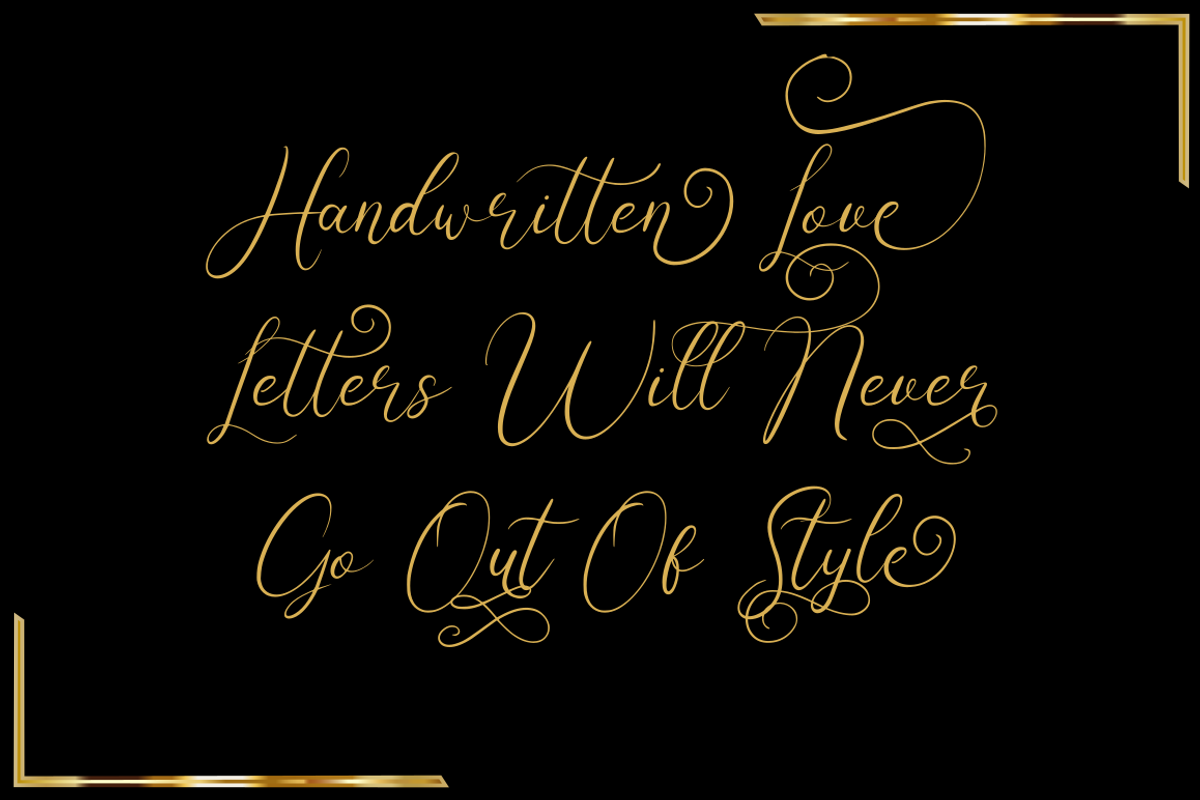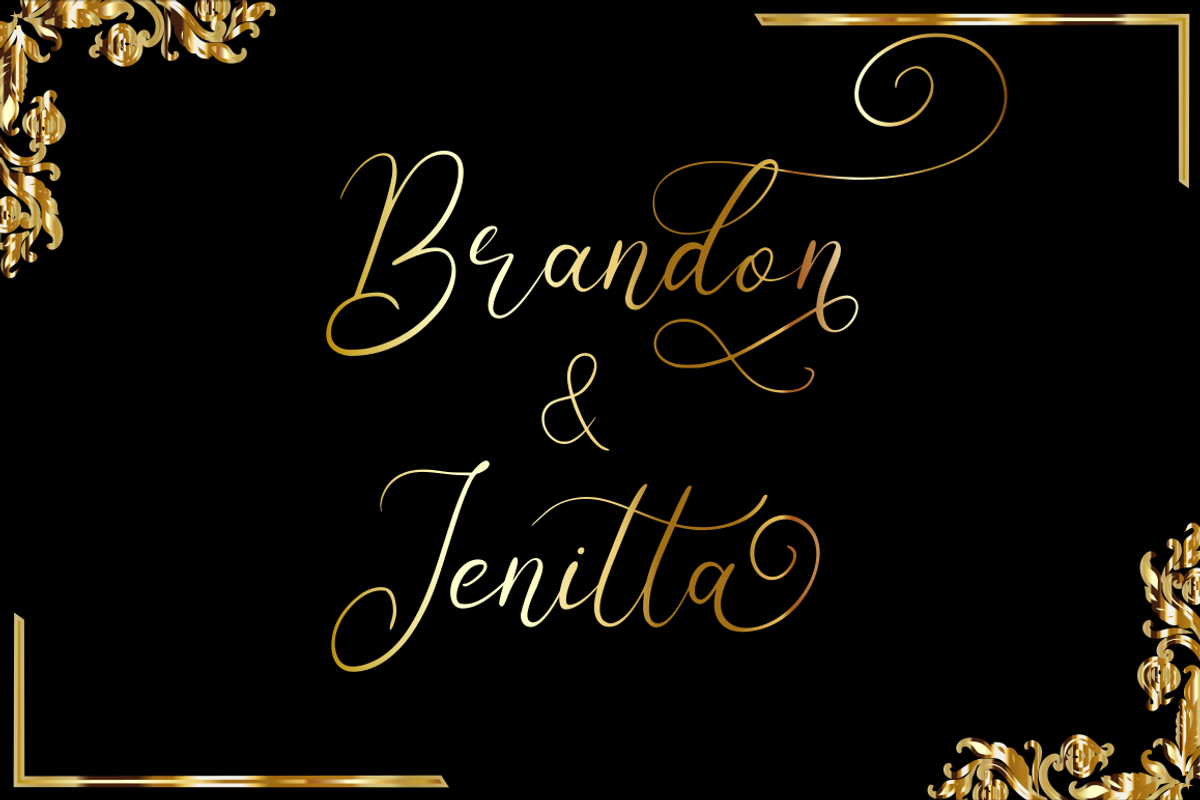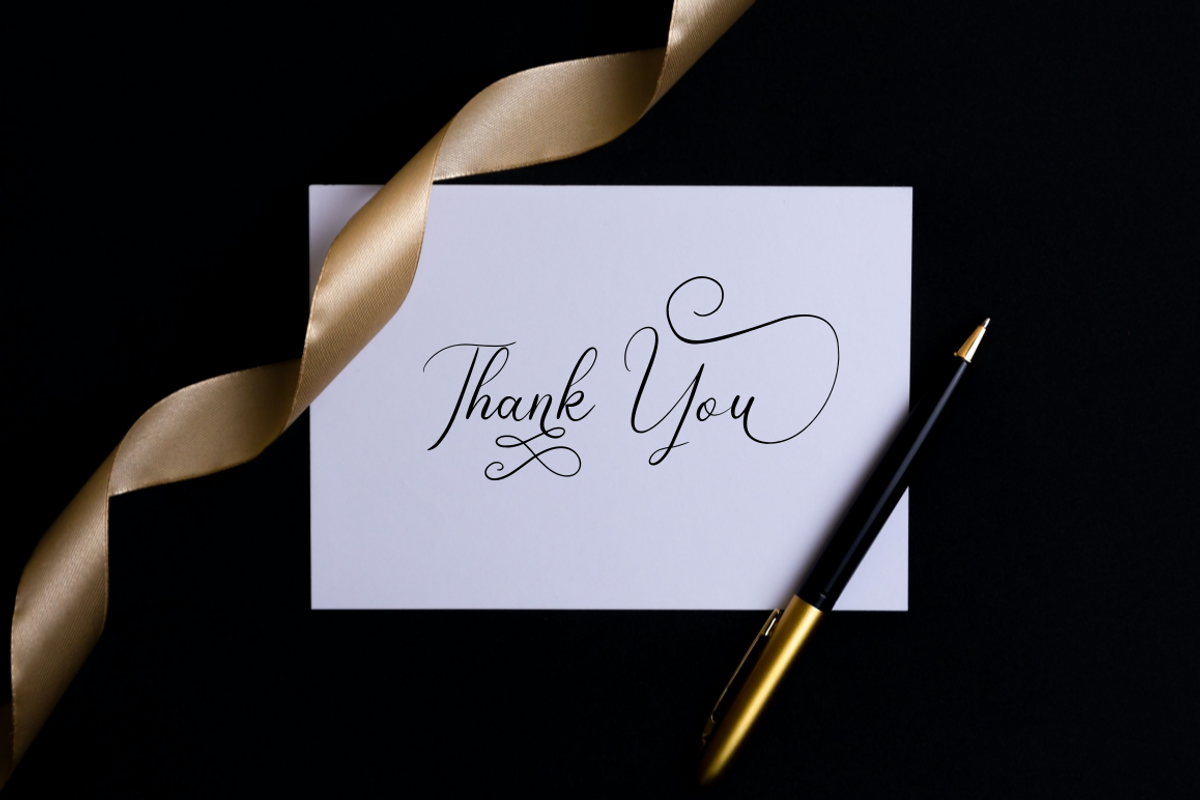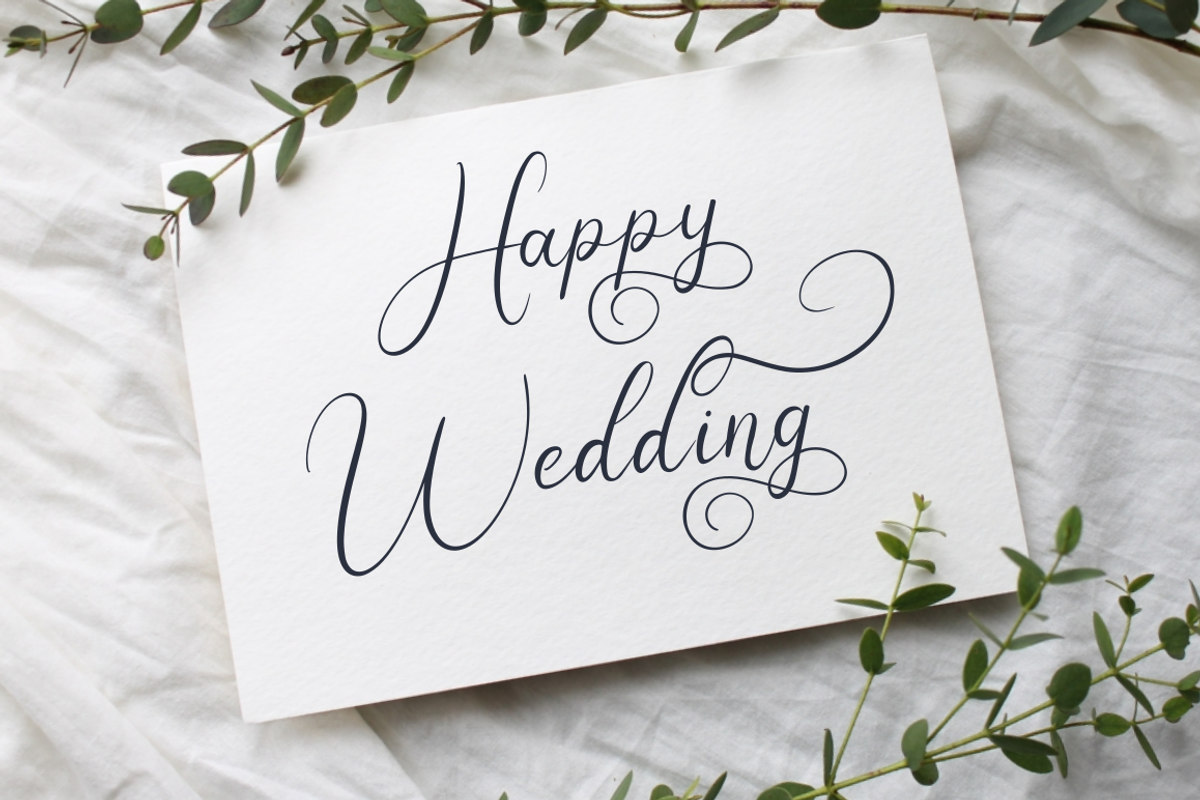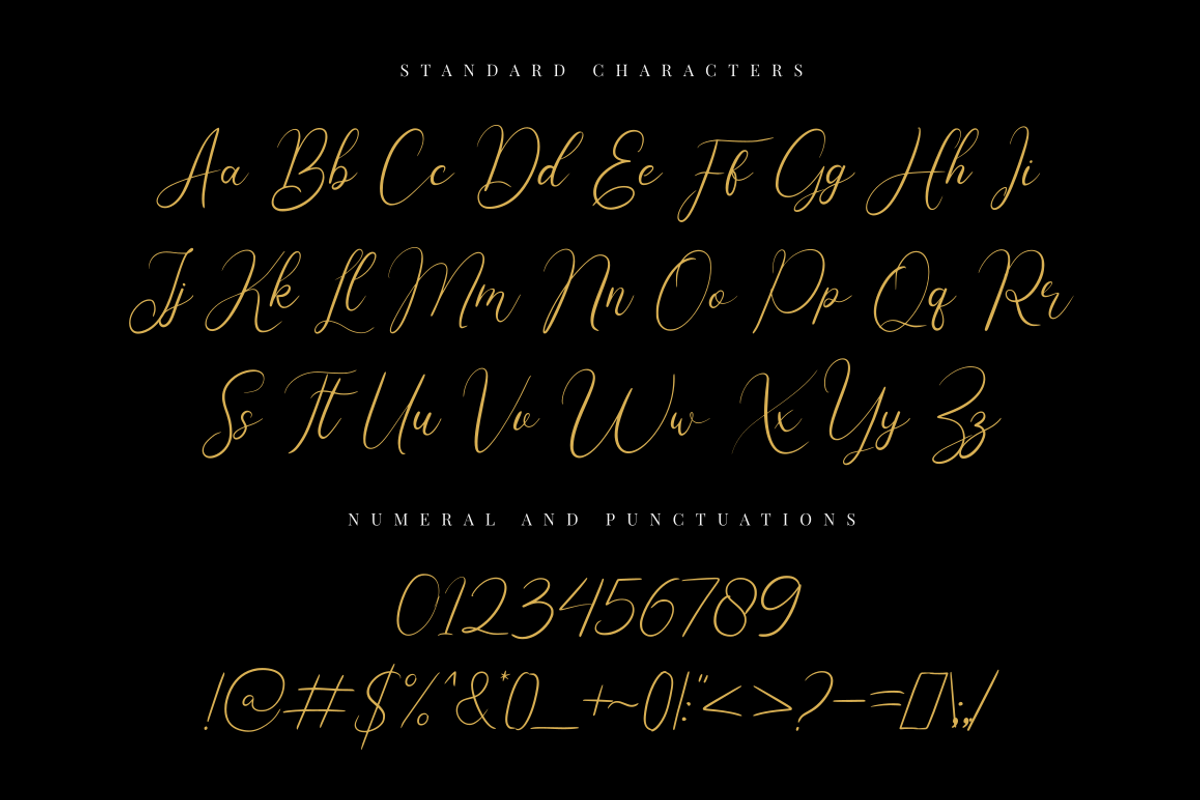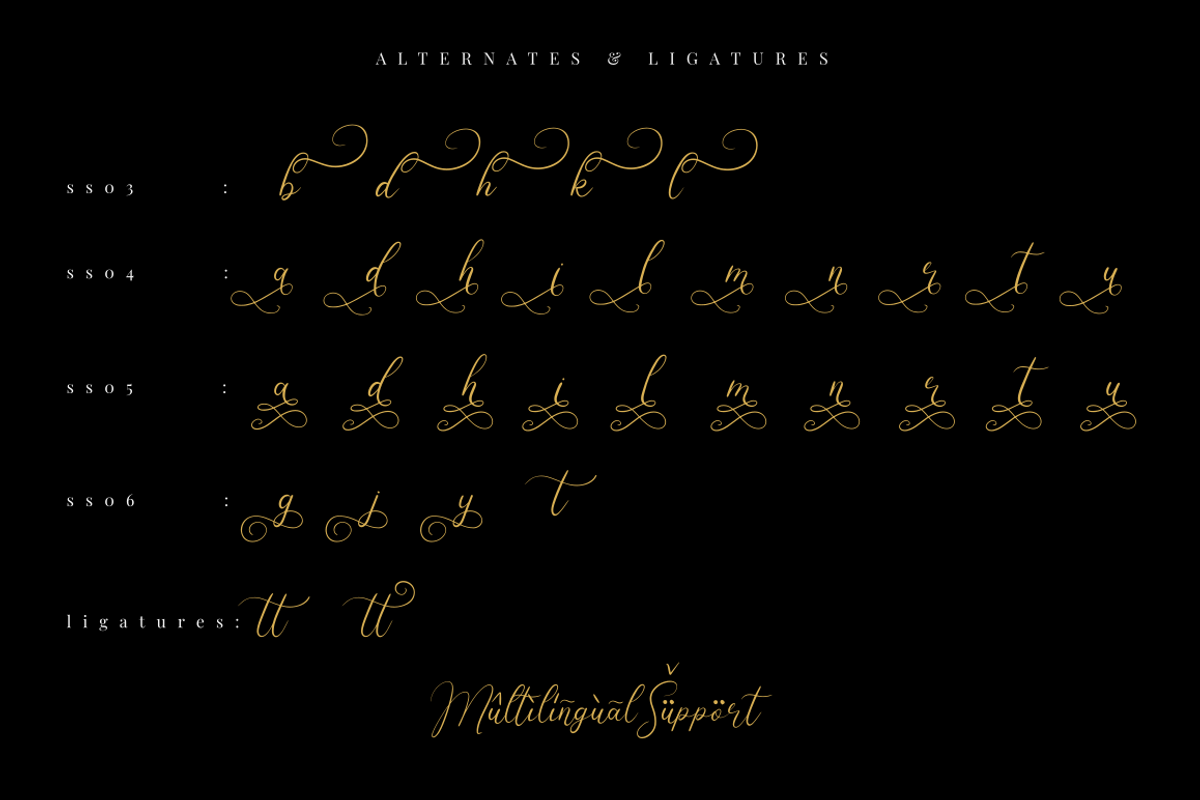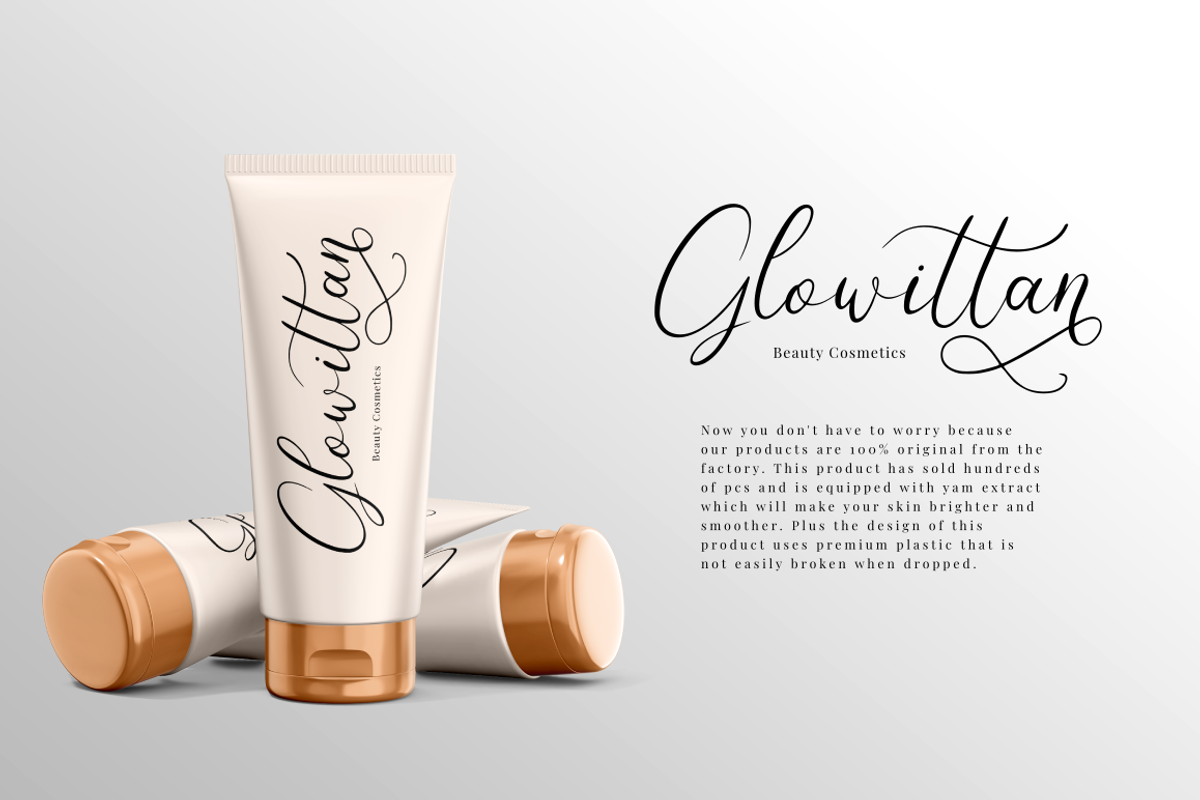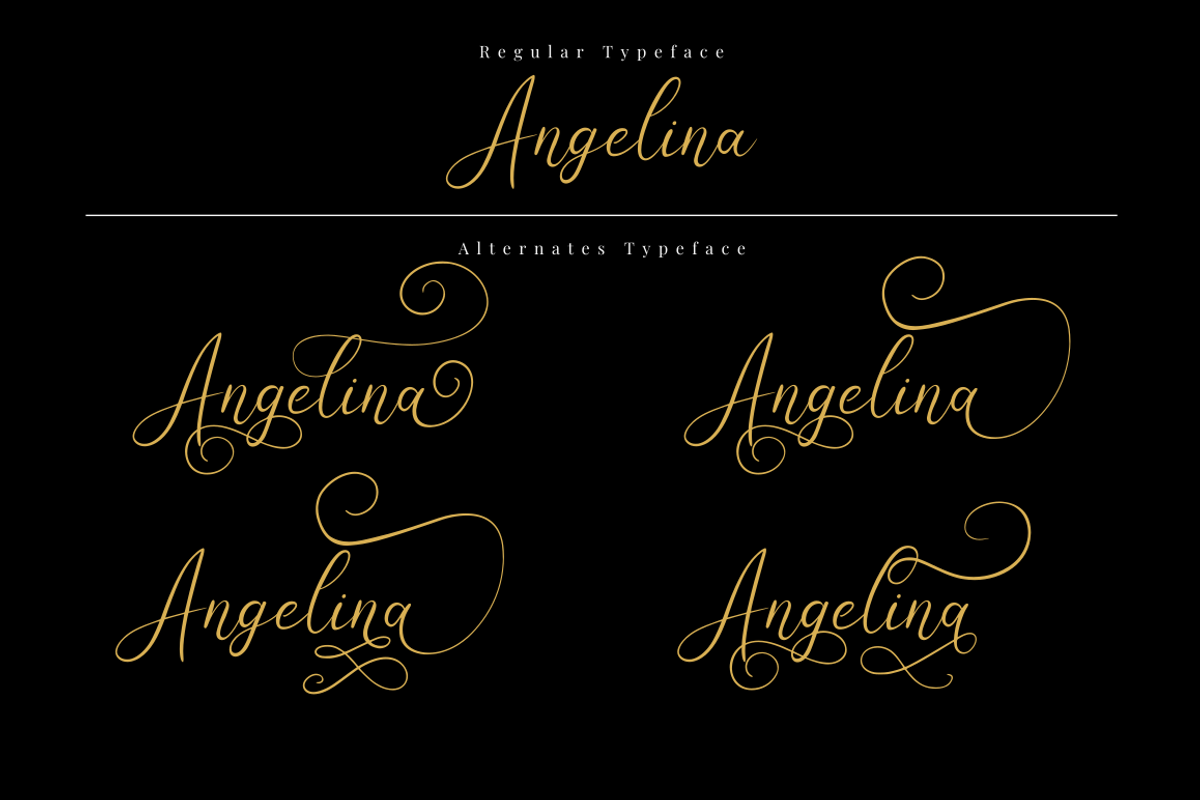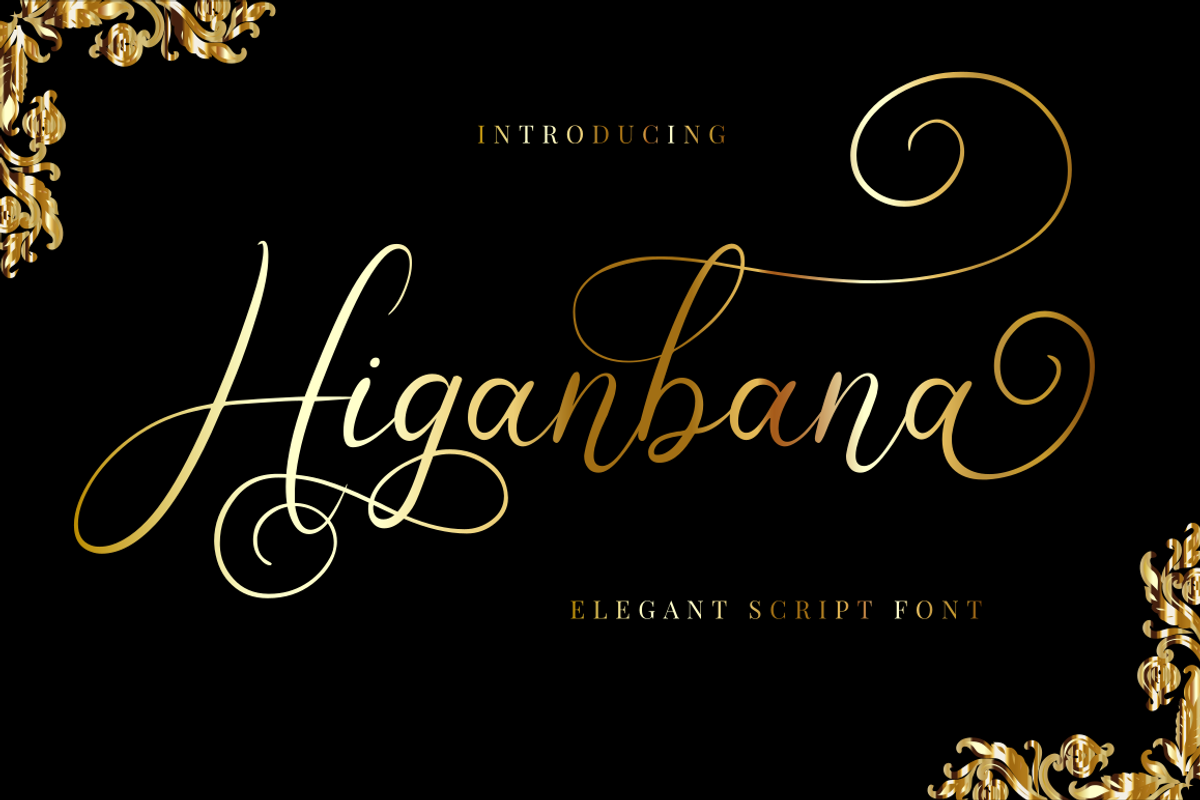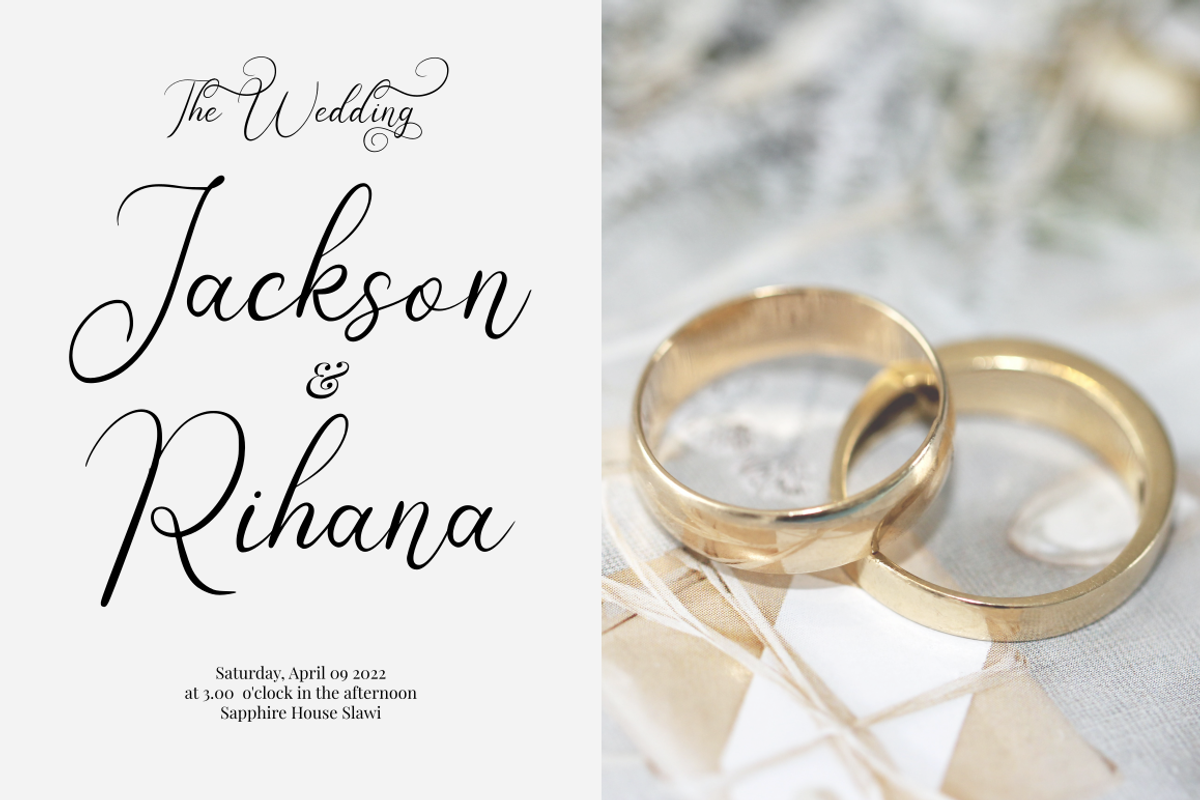
Higanbana | Elegant Script Font
Higanbana is an elegant and stylish font, made from natural handwriting, and carefully designed to get maximum results and is perfect for pairing with serif and sans serif fonts.
Higanbana is perfect for branding projects, logo, wedding designs, social media posts, advertisements, product packaging, product designs, label, photography, watermark, invitation, stationery and any projects that need handwriting taste.
- Ligature & Alternate
- Fonts include multilingual support for; Albanian, Basque, Breton, Chamorro, Danish, Dutch, English, Finnish, Frisian, Galician, Italian, Malagasy, Norwegian, Portuguese, Spanish, Alsatian, Aragonese, Arapaho, Arrernte, Asturian, Aymara, Bislama, Cebuano, Corsican, Fijian, French_creole, Genoese, Gilbertese, Greenlandic, Haitian_creole, Hiligaynon, Hmong, Hopi, Ibanag, Iloko_ilokano, Indonesian, Interglossa_glosa, Interlingua, Irish_gaelic, Jerriais, Lojban, Lombard, Luxembourgeois, Manx, Mohawk, Norfolk_pitcairnese, Occitan, Oromo, Pangasinan, Papiamento, Piedmontese, Potawatomi, Rhaeto-romance, Romansh, Rotokas, Sami_lule, Sardinian, Scots_gaelic, Seychelles_creole, Shona, Sicilian, Somali, Southern_ndebele, Swahili, Swati_swazi, Tagalog_filipino_pilipino, Tetum, Tok_pisin, Uyghur_latinized, Volapuk, Walloon, Warlpiri, Xhosa, Yapese, Zulu,